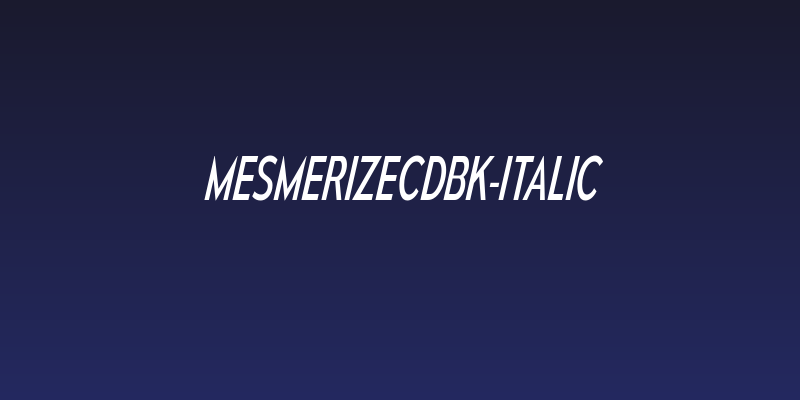
MesmerizeCdBk-Italic Font
MesmerizeCdBk-Italic Description
This font features a sleek, italicized design with a modern aesthetic. The characters are slightly condensed, giving it a streamlined appearance. The strokes are consistent in thickness, providing a medium contrast that enhances readability while maintaining a stylish look. The uppercase letters are tall and elegant, while the lowercase letters are well-proportioned, making it suitable for both headlines and body text. The numerals are clear and distinct, and the special characters are well-integrated, ensuring versatility in various design contexts.
| Proposed Projects | Ideal for branding projects, editorial design, advertising, and digital interfaces where a modern and stylish look is desired. |